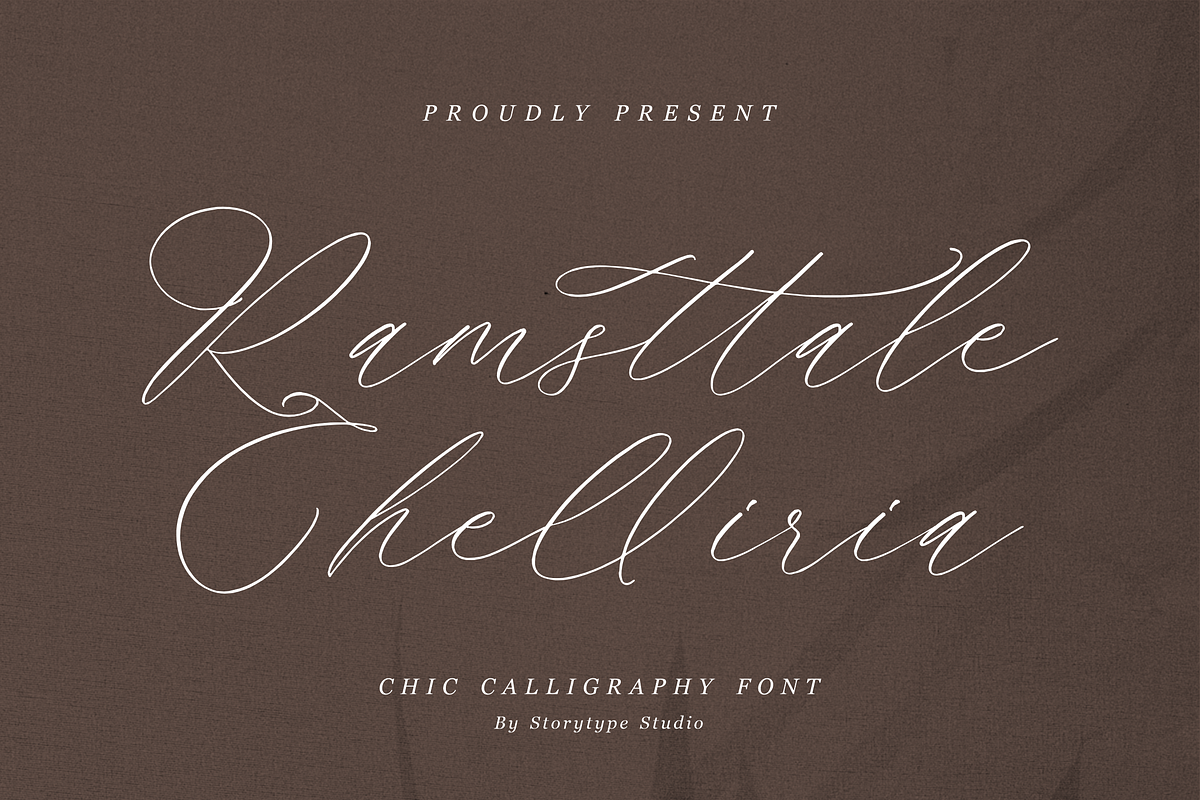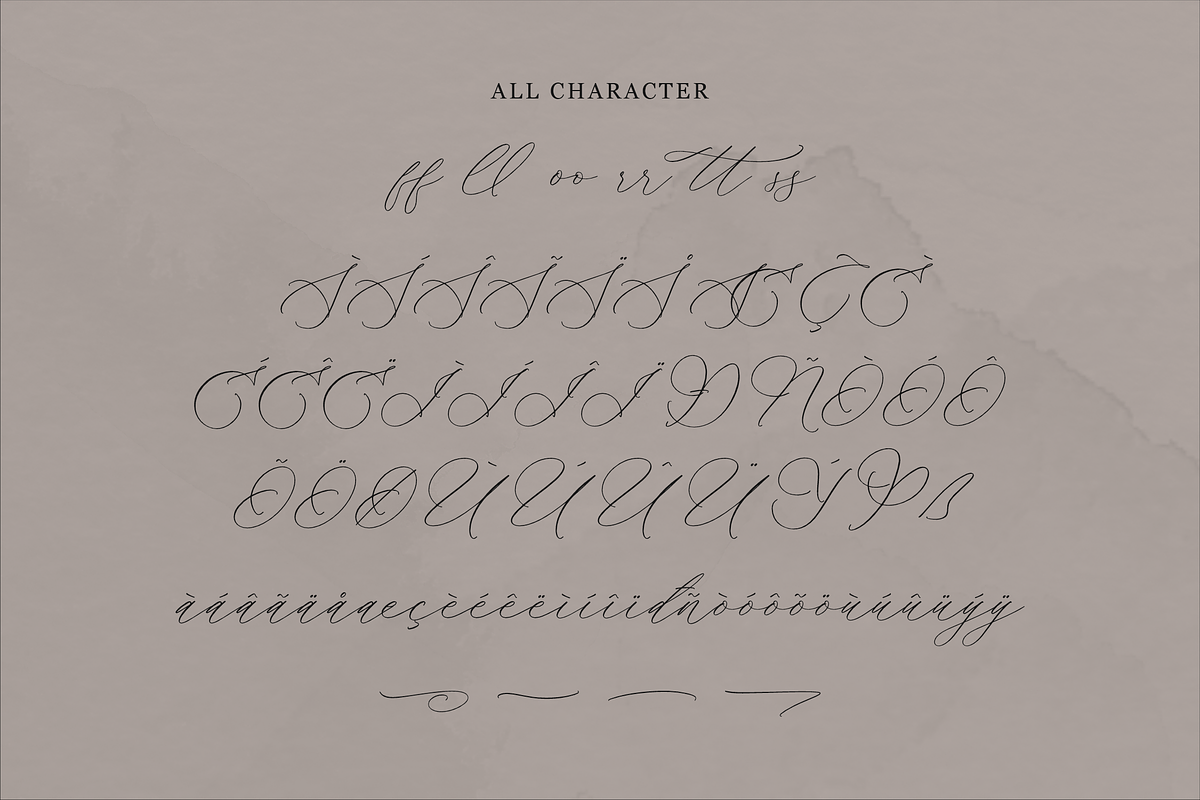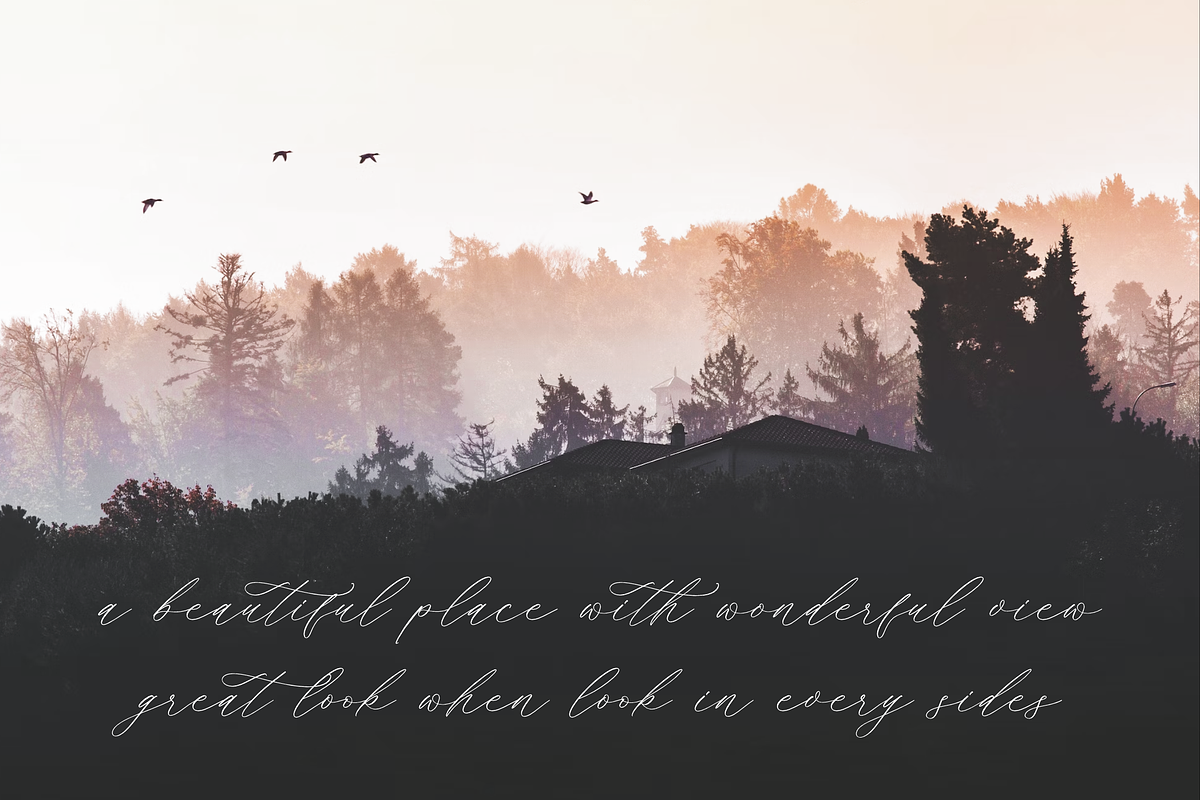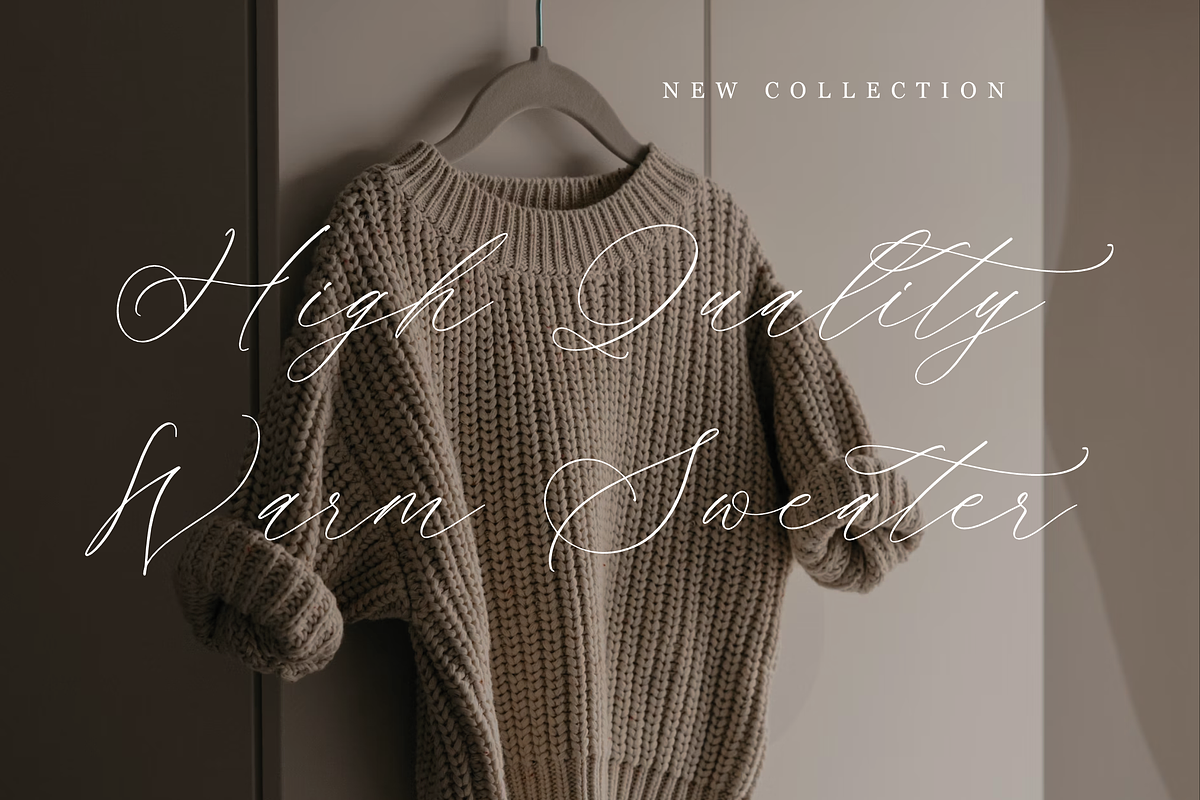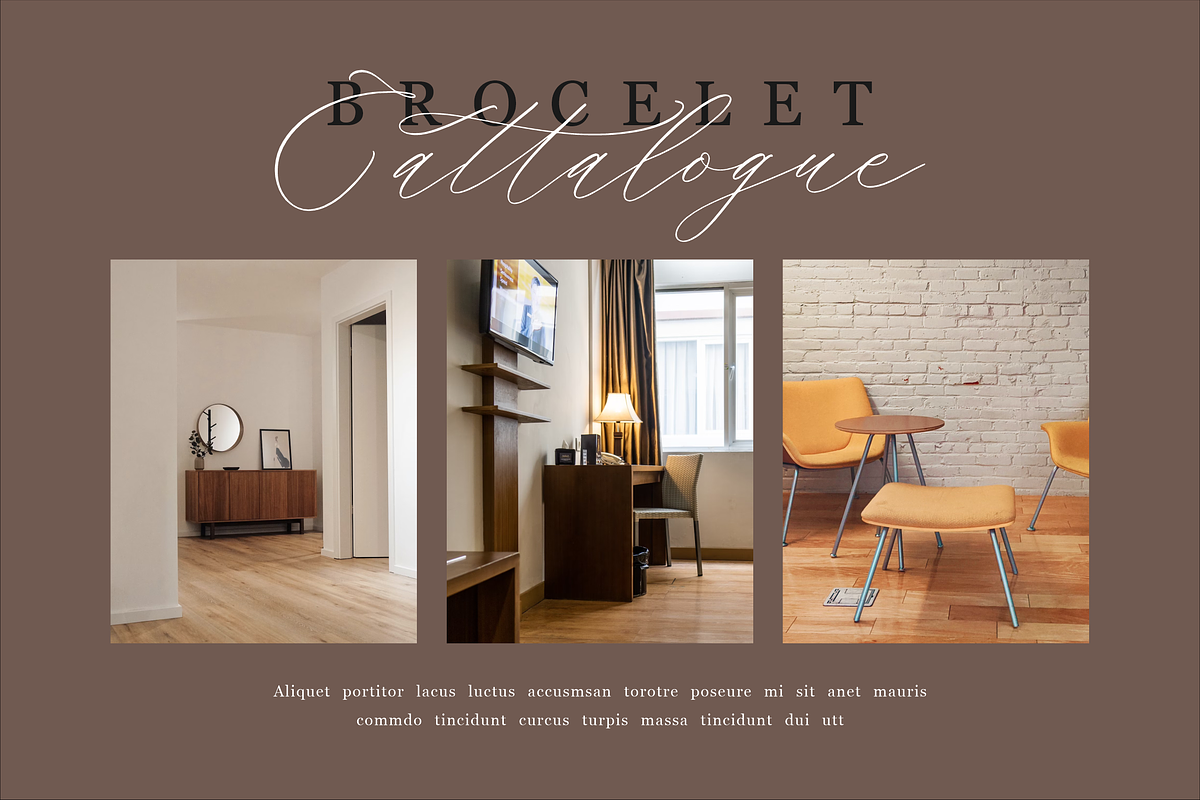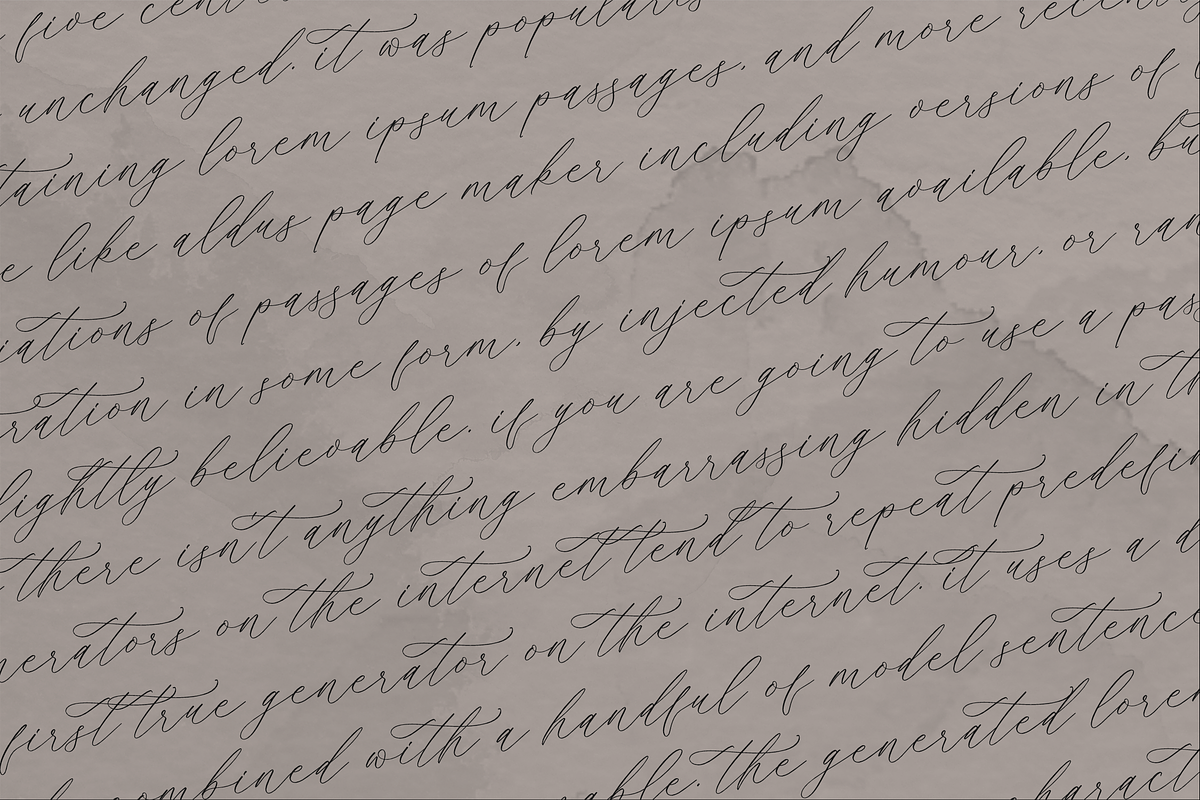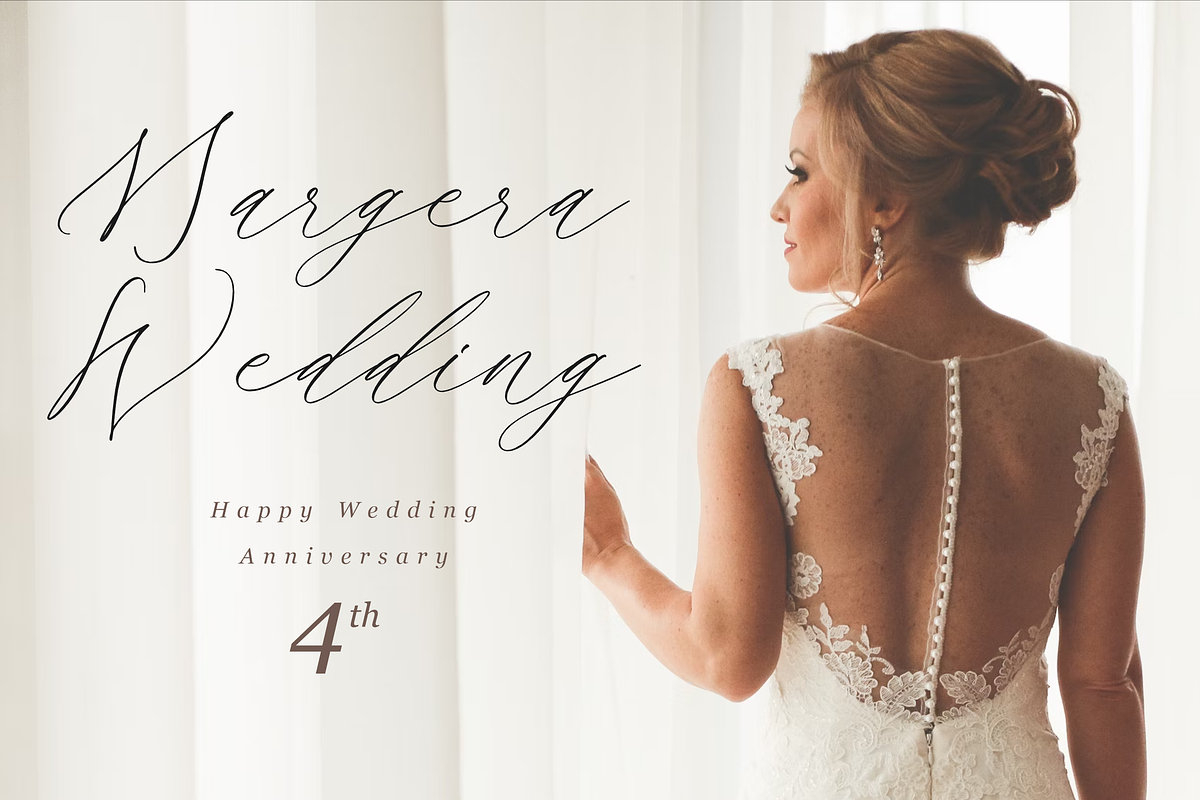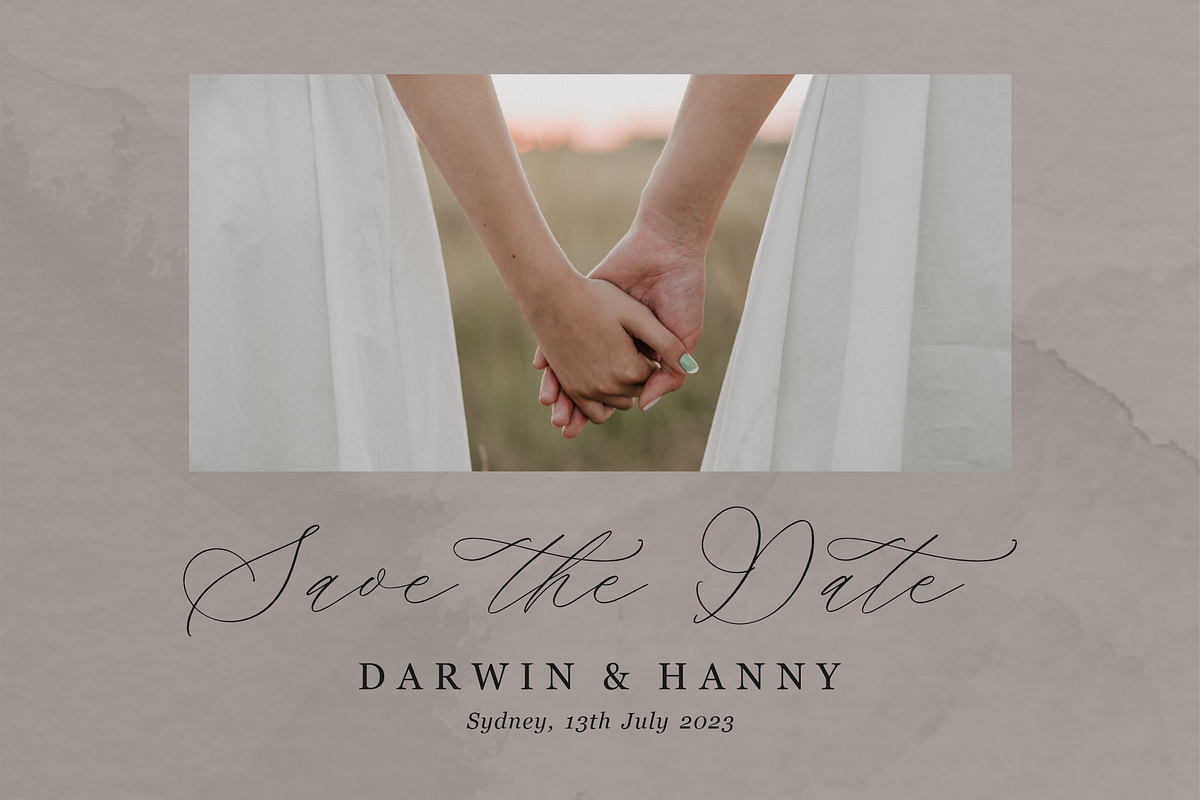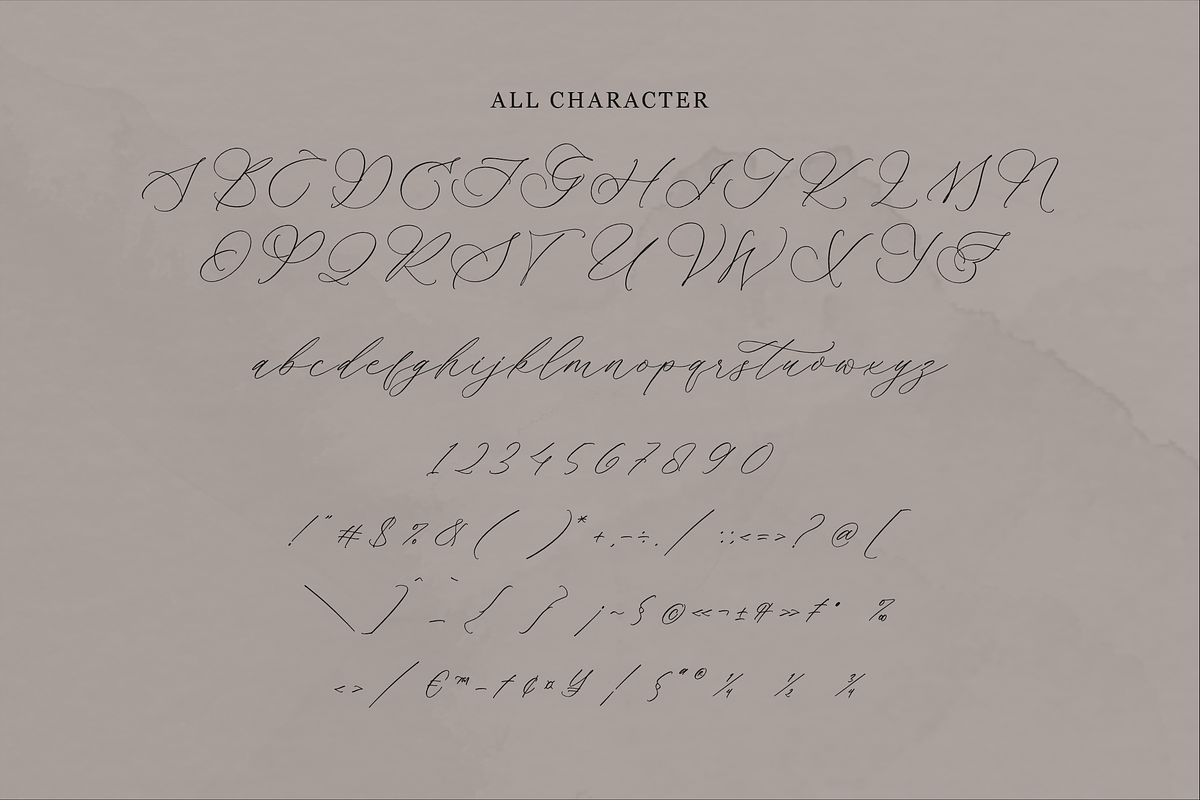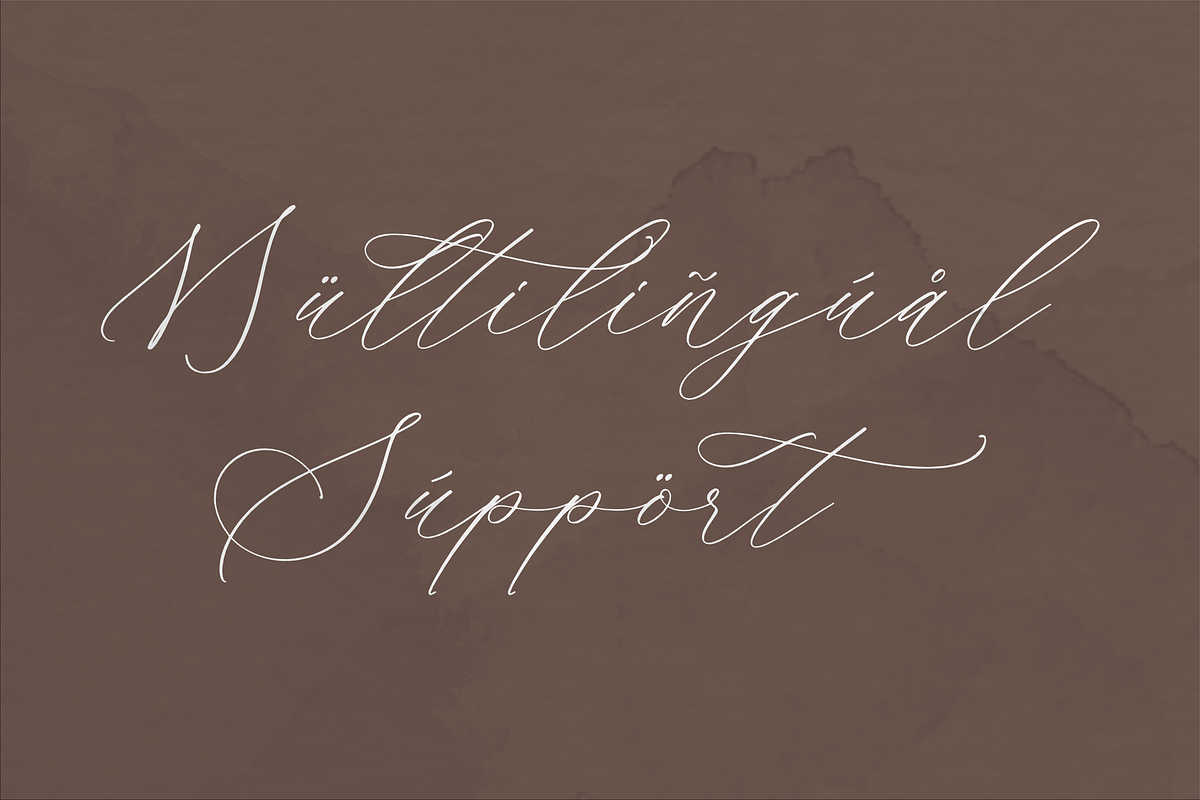
Ramsttale Chelliria Chic Calligraphy
Proudly present Ramsttale Chelliria - Chic Calligraphy Font , created by Storytype, A luxury script that has own unique style & modern look. This typeface is perfect for an elegant & luxury logo, book or movie title design, fashion brand, magazine, clothes, lettering, quotes, and so much more.